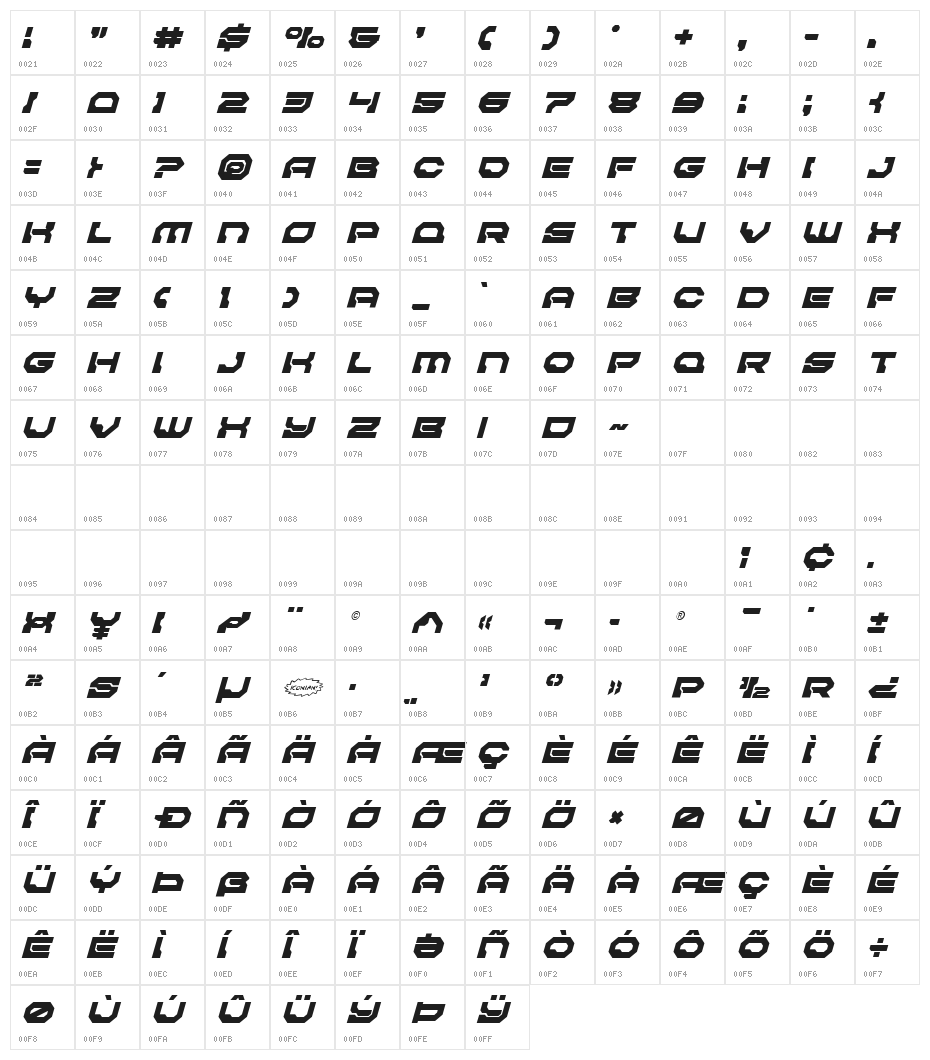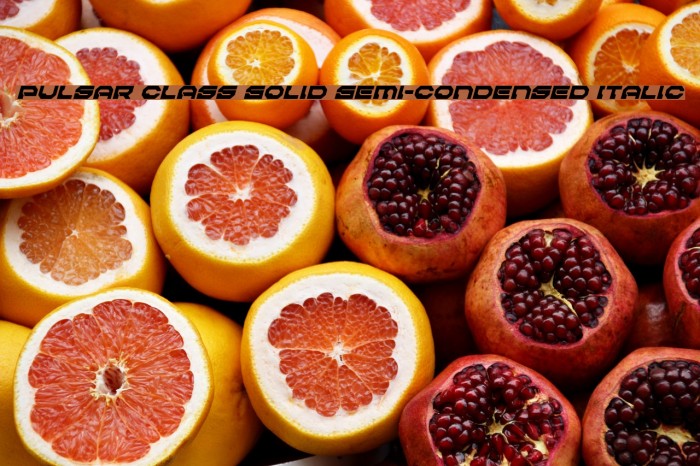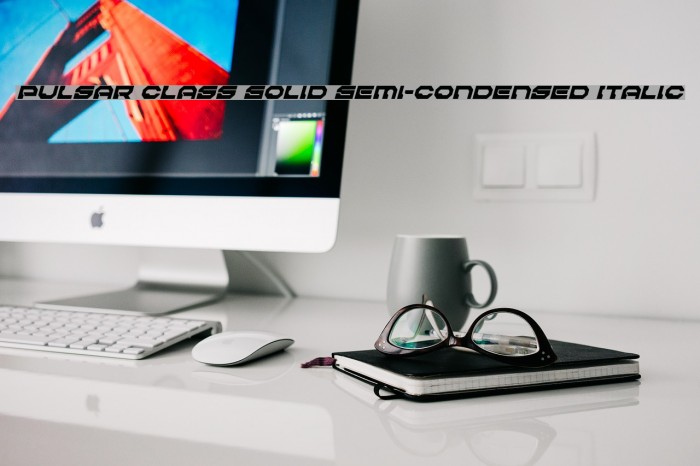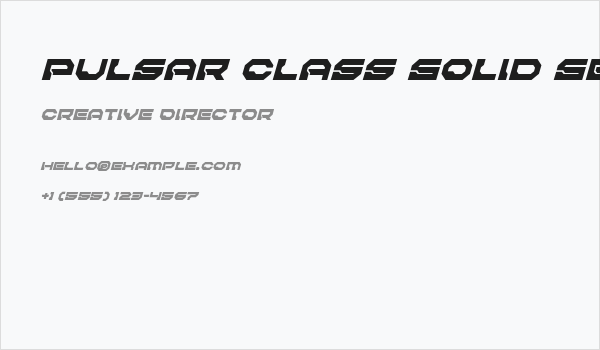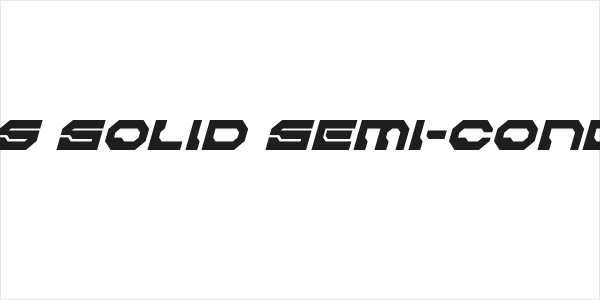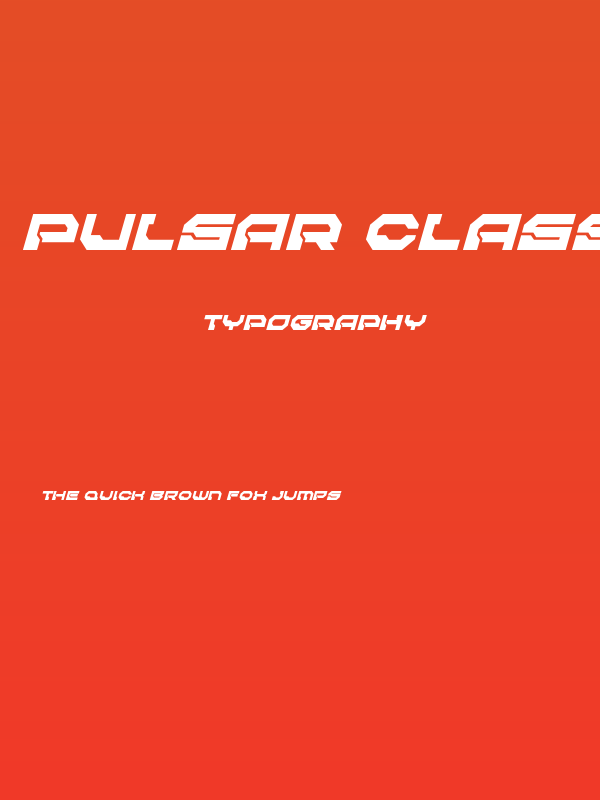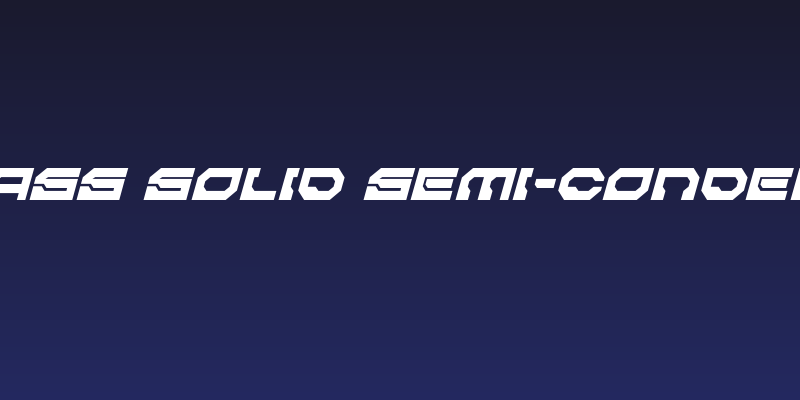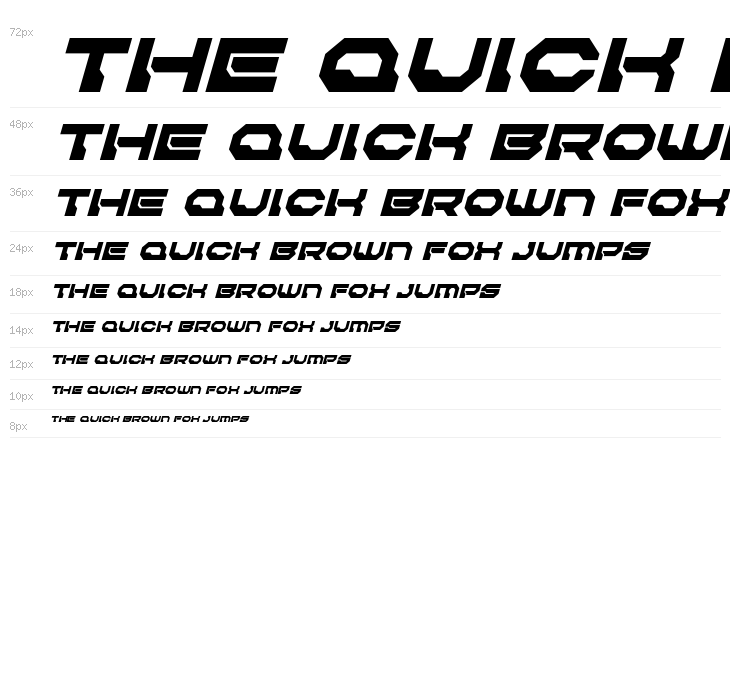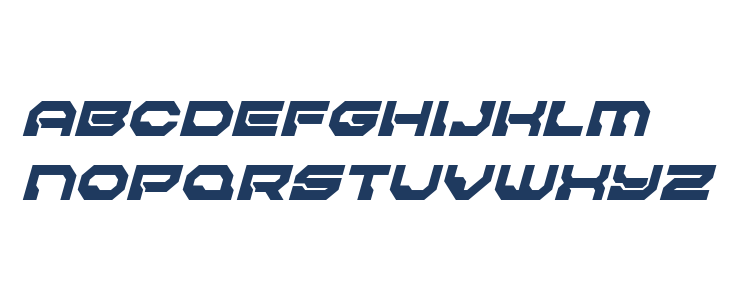
Pulsar Class Solid Semi-Condensed Italic Font
Pulsar Class Solid Semi-Condensed Italic Description
This font features a futuristic and bold design with a semi-condensed structure. The characters are solid and italicized, giving them a dynamic and forward-leaning appearance. The angular and geometric shapes of the letters create a sense of movement and modernity. The uppercase and lowercase letters maintain a consistent style, with sharp edges and a uniform weight. The numbers and special characters follow the same design principles, ensuring a cohesive look across all elements. This font is ideal for projects that require a strong and contemporary aesthetic.
| Proposed Projects | Ideal for sci-fi themed designs, technology branding, video game titles, and modern posters. |